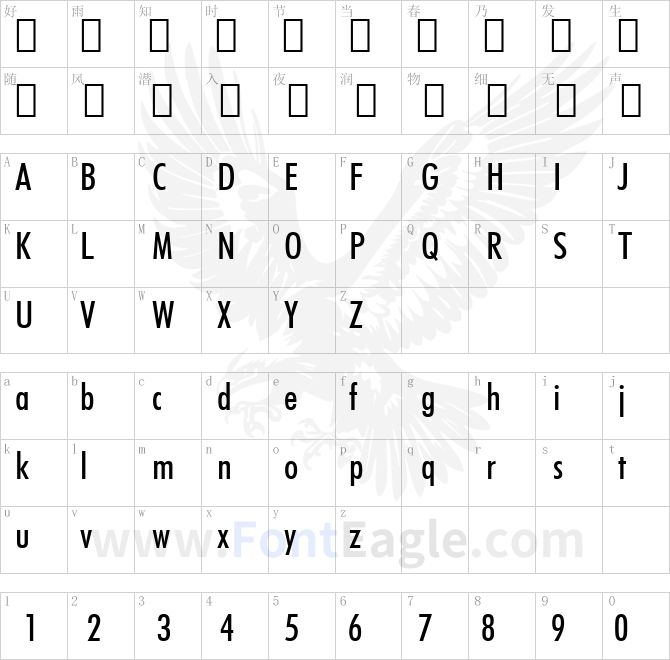
Futura MdCn BT Medium.ttf Base Font Information
- Font name:Futura MdCn BT
- Font Subfamily ID:Futura Medium Condensed, Geometric 211
- Font Full Name:Futura MdCn BT Medium
- Font Version:mfgpctt-v4.4 Dec 10 1998
- Postscript:FuturaBT-MediumCondensed